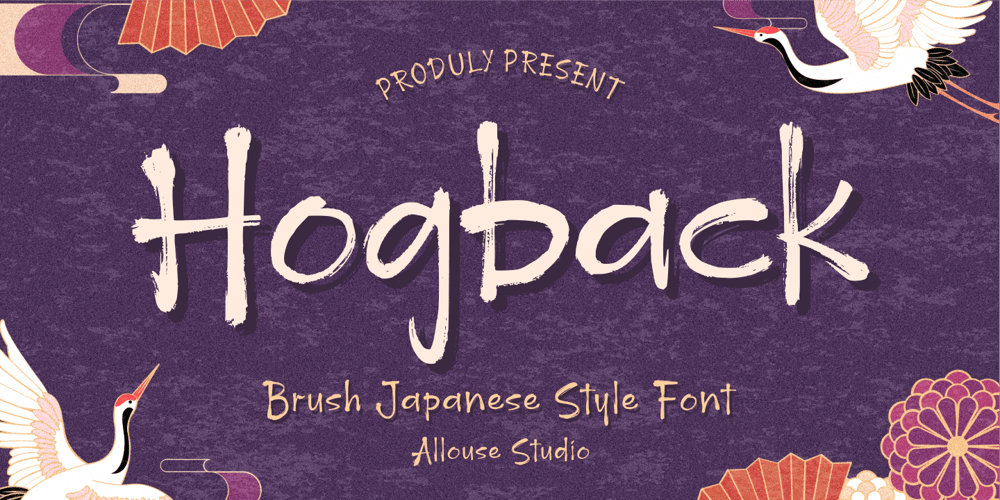
Hogback Font Family was designed by Fachrizal Yusuf and published by Allouse Studio. Hogback contains 1 styles and family package options. Proudly Presenting, Hogback a Brush Japanese Style Font that will bring an natural imression Asian Style for your need.Hogback is perfect for any tittles, logo, product packaging, branding project, megazine, social media, wedding, or just used to express words above the background.Hogback also come with Multi-Lingual Support.Enjoy the font, feel free to comment or feedback, send me PM or email. Thank You!